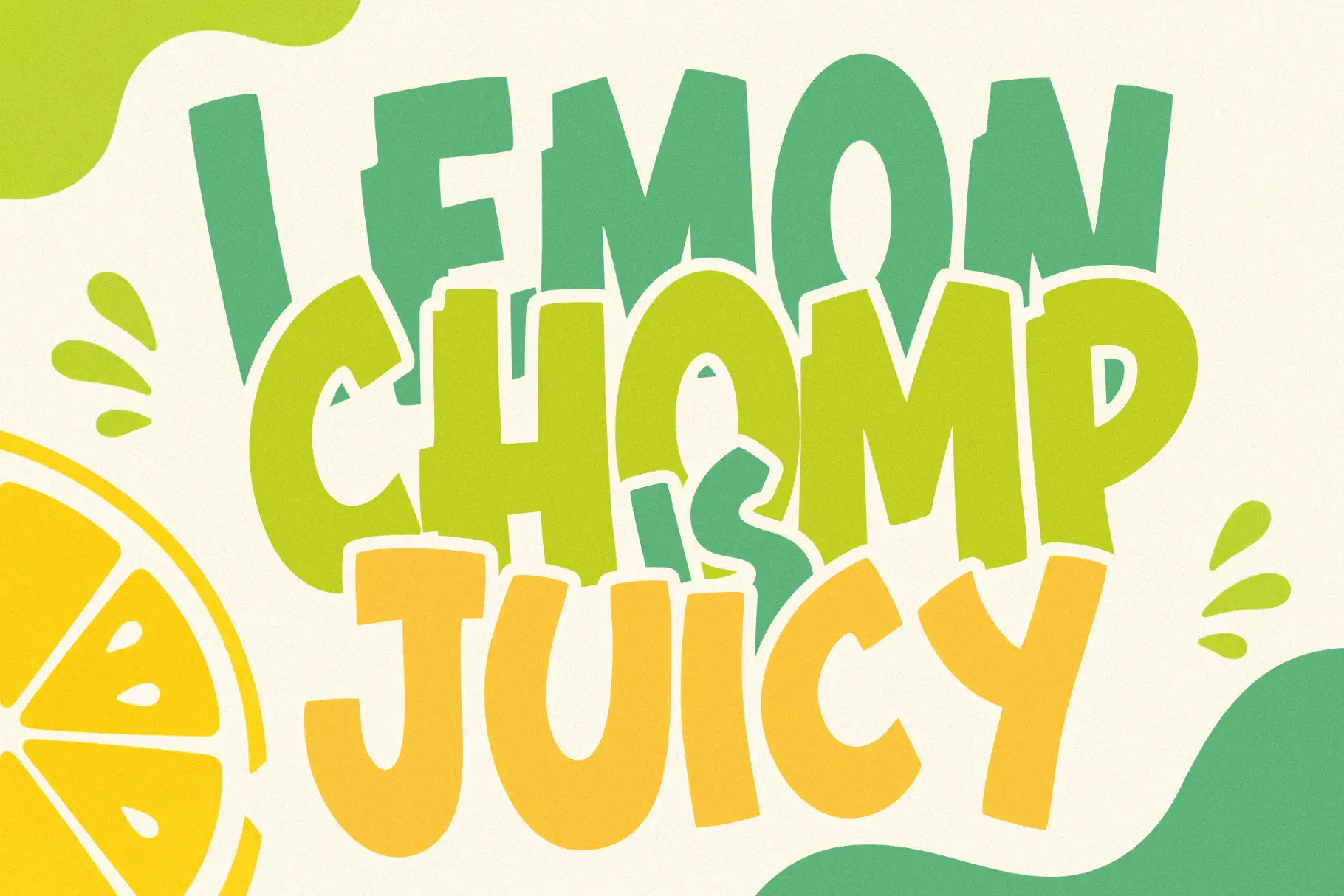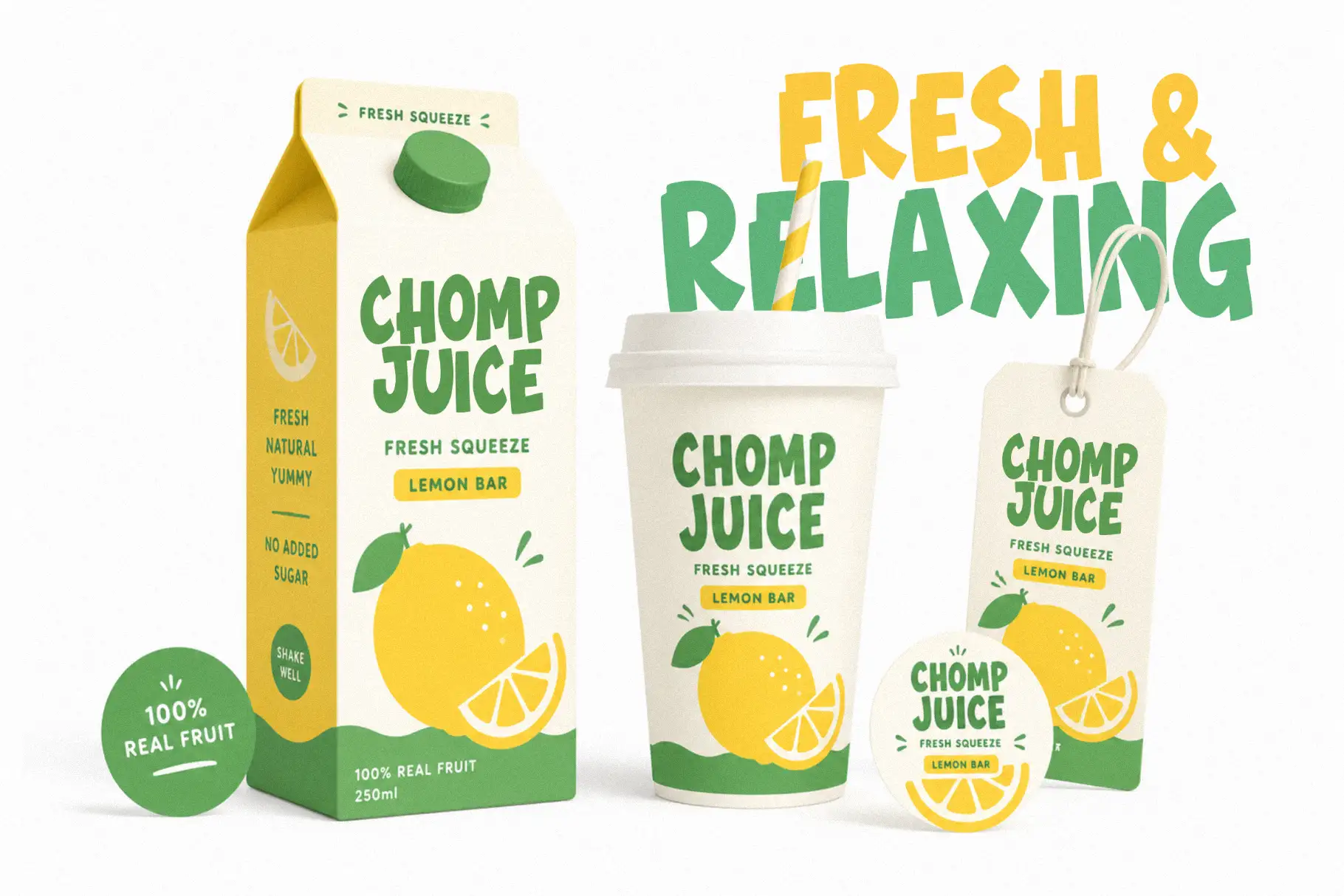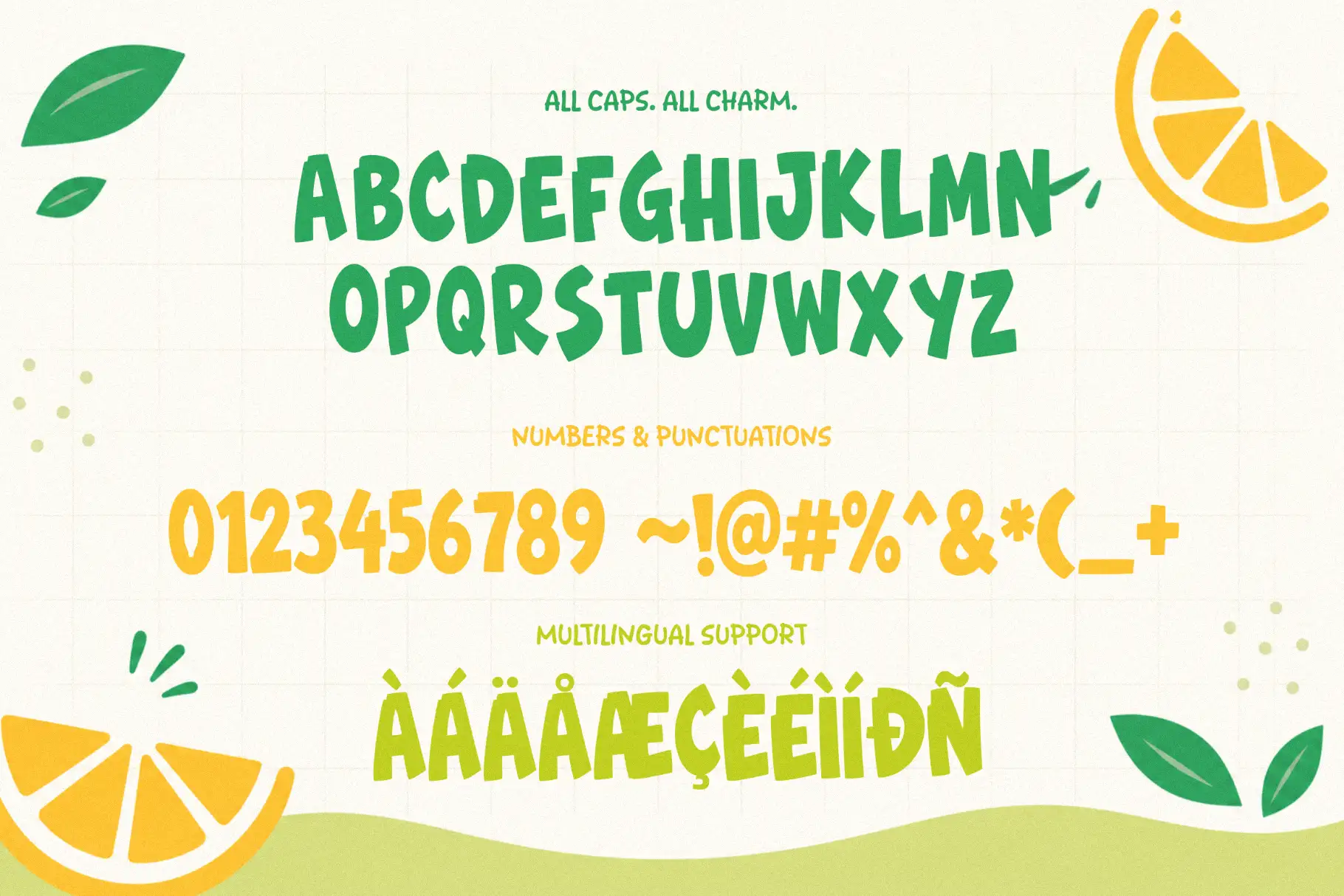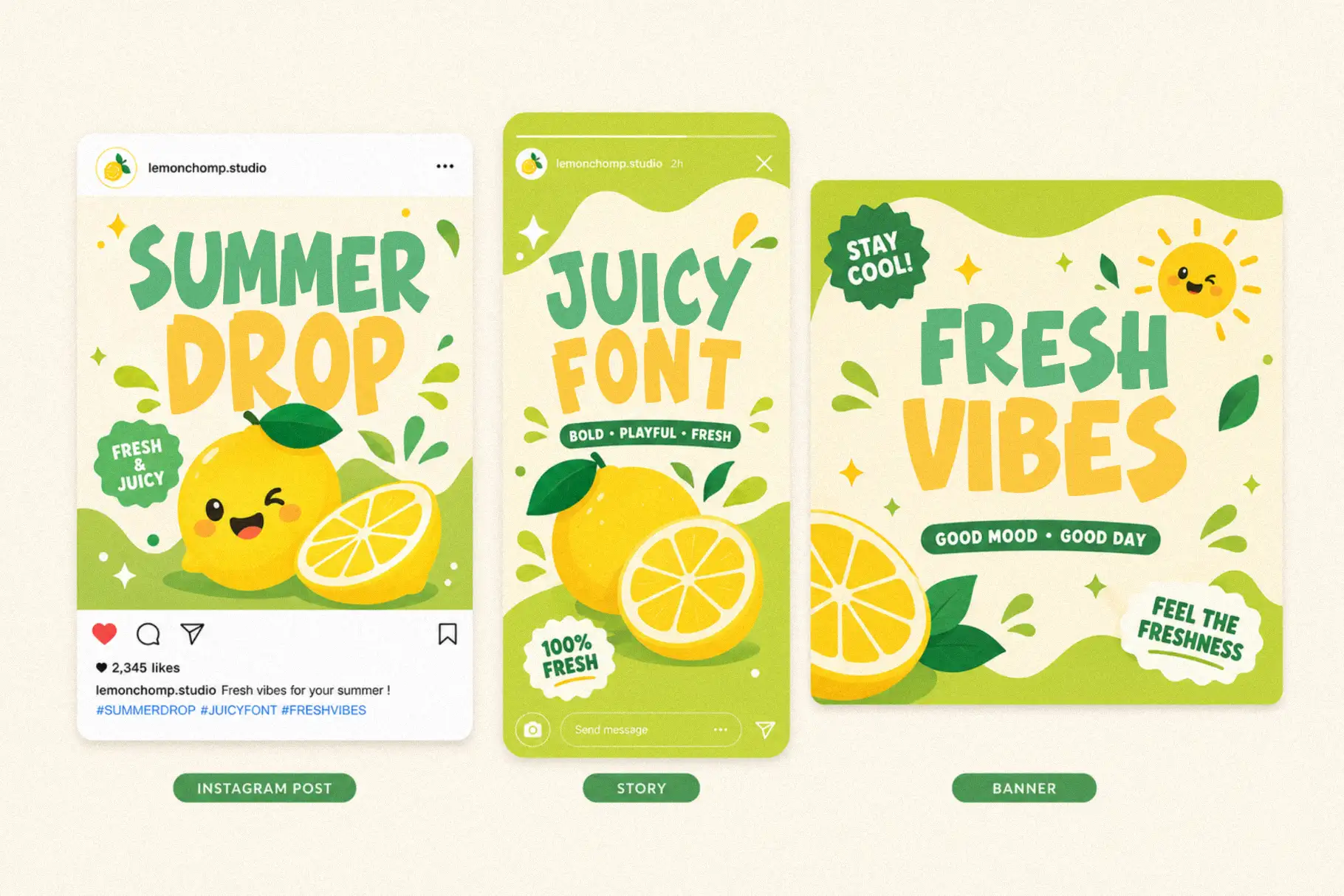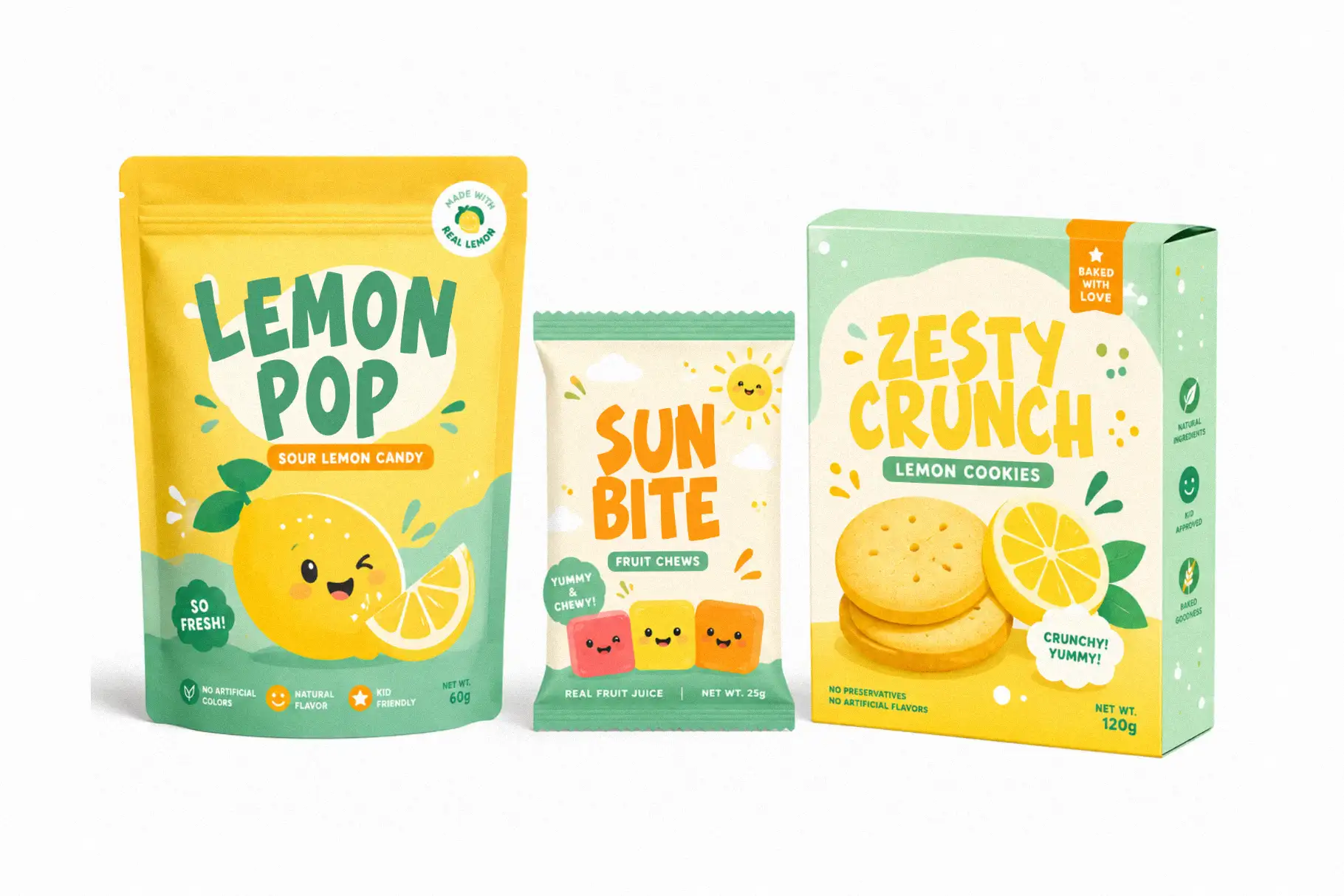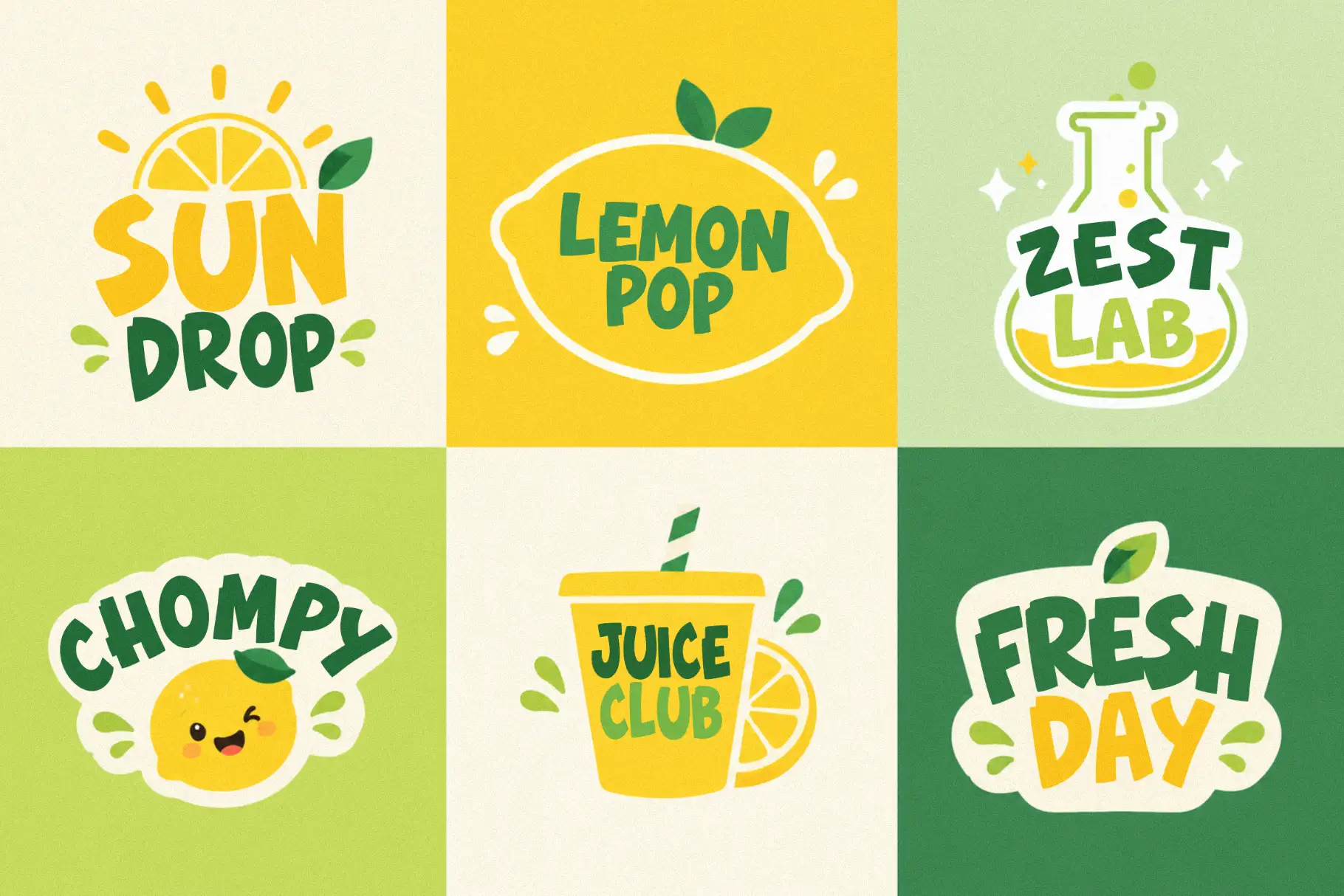
Lemon Chomp
Lemon Chomp Playful Display Font for Bold Creative Ideas
Lemon Chomp playful display font is made for designs that need instant joy, bold personality, and a fresh comic-inspired look. With its playful character and all-caps structure, Lemon Chomp is a strong choice for kids branding, cartoon-style titles, cheerful packaging, school projects, posters, and fun merchandise designs.
This font brings a lively visual tone without feeling too complicated. It is easy to imagine on a children’s book cover, a snack label, a playful YouTube thumbnail, a comic-style headline, or a colorful classroom poster. For designers who need a display font that feels bold, friendly, and full of movement, Lemon Chomp gives your words a cheerful voice from the first glance.
Designed with a playful, kids, and comic direction, this typeface works best when used as the main attention-grabbing element. Use it for titles, short phrases, product names, badges, labels, and fun visual identities where personality matters.
Lemon Chomp has a fresh bold display style with a playful attitude. Its all-caps format gives every word a strong presence, making it especially useful for headlines and short text compositions. The mood feels energetic, friendly, and expressive, which makes it suitable for projects aimed at kids, families, creative shops, educators, crafters, and content creators.
The comic-inspired personality gives Lemon Chomp a casual and entertaining feel. It does not try to be formal or minimal. Instead, it leans into charm, fun, and bold readability. This makes it a practical choice for designs that need to feel approachable, colorful, and full of character.
Because Lemon Chomp is designed as a display font, it is best used in larger sizes where the shape and personality can shine. Use it for front-facing visual moments: product names, event titles, children’s activity covers, fun printable designs, and social media graphics.
Best Use Cases
Lemon Chomp is ideal for creative projects that need a bright and playful tone. Its bold comic look makes it especially useful for children-focused and entertainment-driven designs.
You can use Lemon Chomp for kids product branding, toy packaging, school flyers, classroom worksheets, comic-style posters, cartoon titles, YouTube thumbnails, digital stickers, party invitations, greeting cards, children’s apparel, book covers, playful logos, and printable wall art.
It is also a great fit for crafters and digital product sellers who create cheerful templates, kids activity sheets, birthday graphics, nursery designs, or fun seasonal collections. If your design needs to look friendly, bold, and instantly readable, Lemon Chomp gives you a strong visual starting point.
For packaging designers, Lemon Chomp can help create a product identity that feels more expressive and memorable. For social media creators, it works well for attention-grabbing captions and thumbnail text. For brand designers, it can support playful logo concepts, mascot-based branding, or cheerful campaign visuals.
Lemon Chomp Playful Display Font Key Features
• Fresh bold display font style
• Playful visual personality
• Kids-inspired design direction
• Comic-style look and feel
• All-caps characters
• Multilingual support
Designers love fonts that can set the tone quickly. Lemon Chomp helps do that with a bold, playful, and comic-inspired personality that works well across both digital and print projects. It gives a design an immediate sense of fun, making it useful for brands and creators who want to speak to kids, families, and cheerful audiences.
For brand owners, Lemon Chomp can make product names feel more friendly and memorable. For graphic designers, it offers a clear display style that can anchor a composition without needing excessive decoration. For crafters and digital product sellers, it is a practical choice for templates, stickers, printable art, and kids-themed assets.
The all-caps structure also makes Lemon Chomp useful for strong visual hierarchy. It can turn short words and phrases into bold design moments, helping your layout feel more confident and organized. Whether you are building a poster, label, thumbnail, or classroom printable, Lemon Chomp brings a lively tone that feels easy to use and visually engaging.